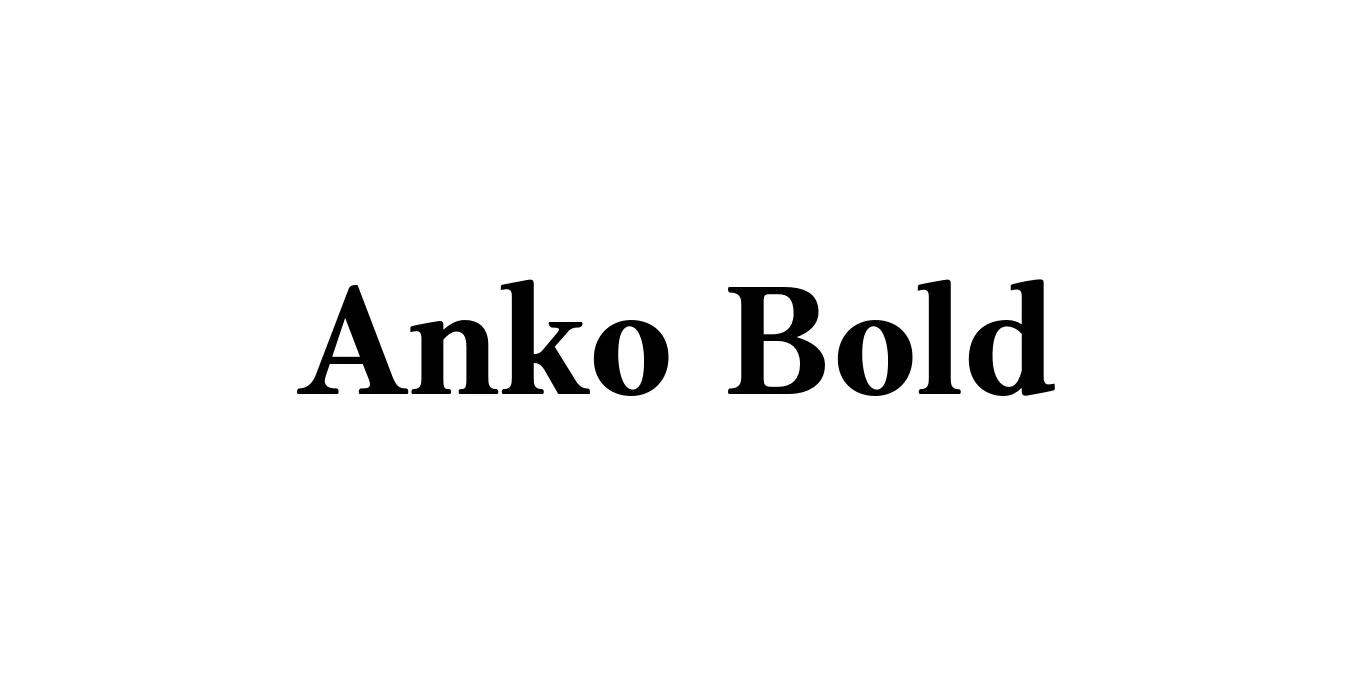
Anko Bold
Designed by Situjuh Nazara
Anko Bold is a sophisticated serif typeface designed by Situjuh Nazara of 7NTypes. It was meticulously crafted to balance contemporary aesthetics with classic legibility, making it an excellent choice for modern editorial design. The bold weight specifically emphasizes strength and authority, featuring precise terminal shapes and balanced proportions that ensure clarity even at larger display sizes.
The development of the Anko family revolves around the concept of versatility and timelessness. Since its release, it has been widely adopted by graphic designers for branding projects that require a touch of elegance without sacrificing modern flair. Its sturdy construction allows it to perform exceptionally well in both high-resolution print and digital environments, bridging the gap between traditional book typography and digital interface design.
Anko Bold Best Uses
Ideal for high-end corporate identities and luxury logo marks.
Perfect for magazine headlines and impactful cover designs.
Provides a clean and professional look for landing page headers and hero sections.
Highly legible for book covers, posters, and professional business cards.